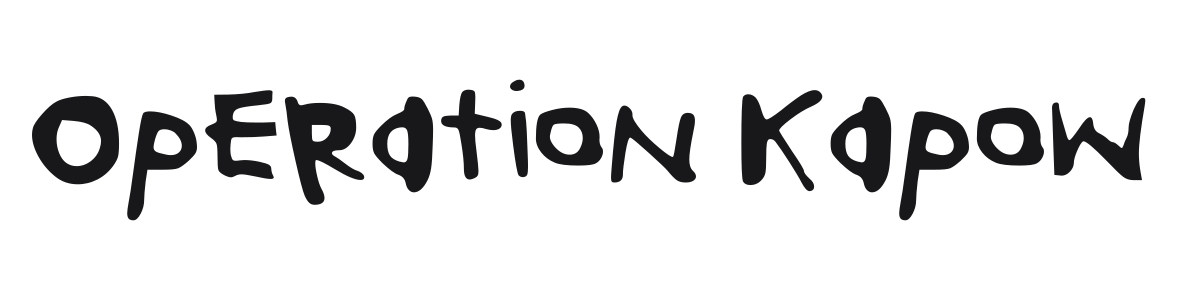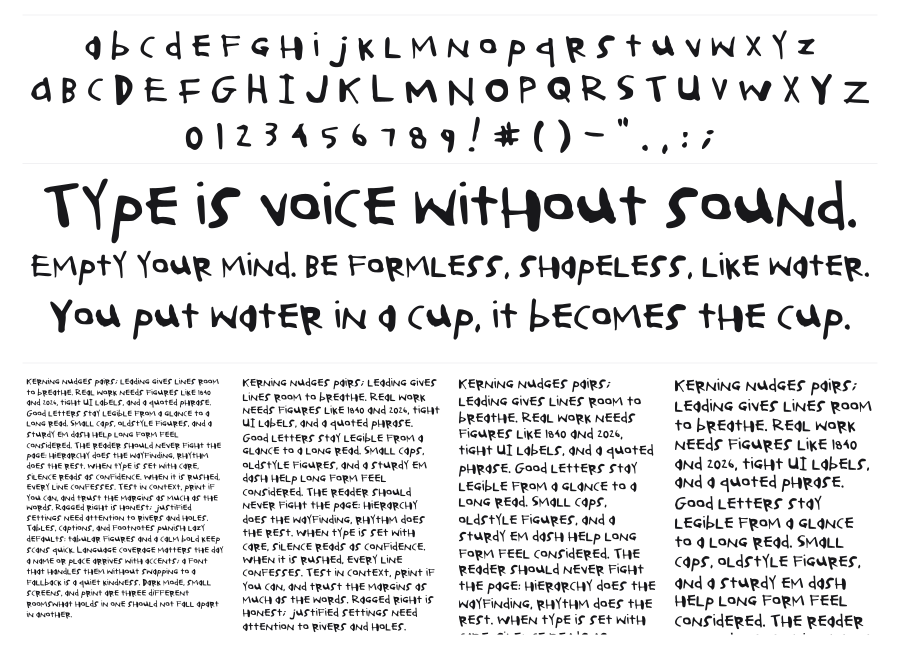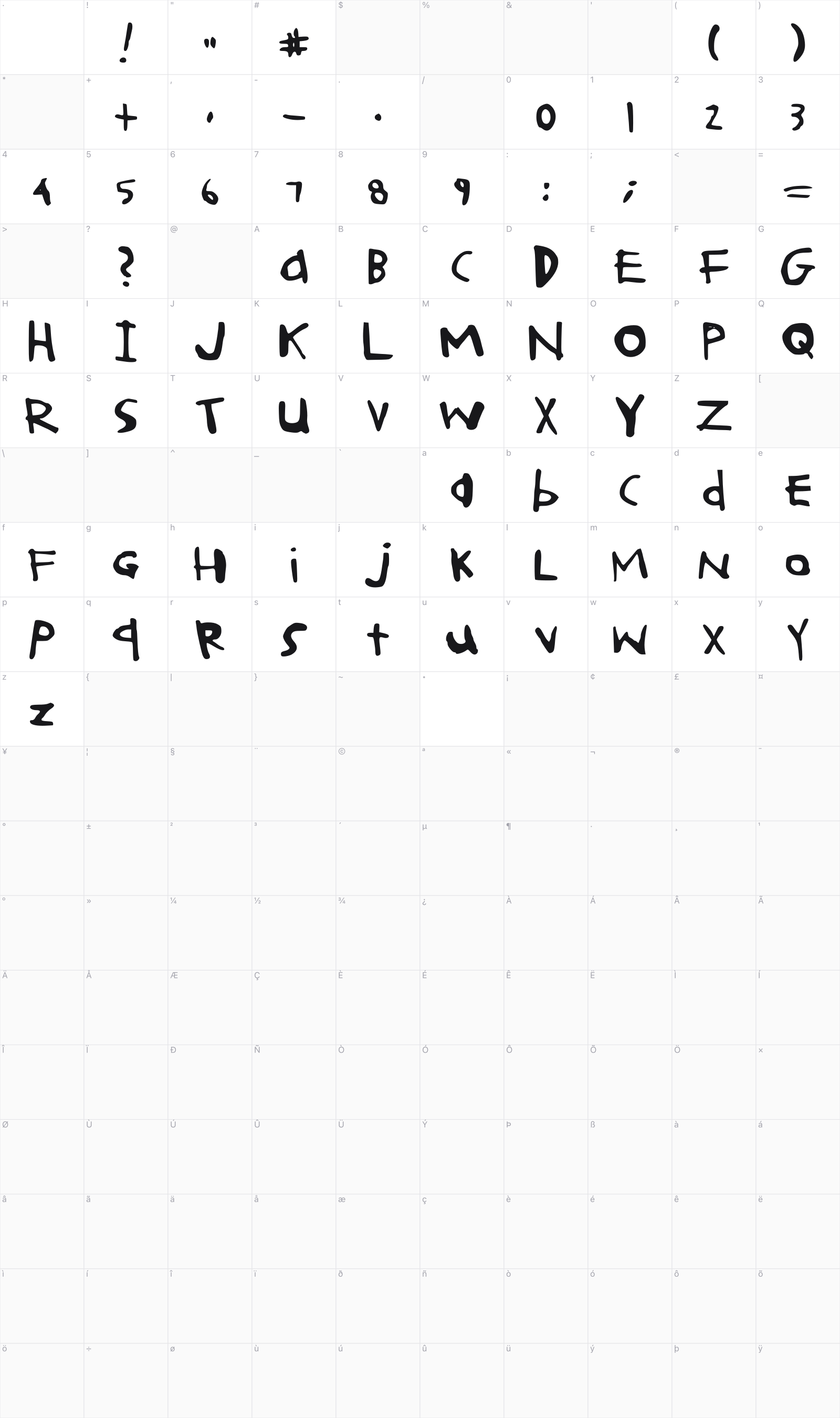
Operation Kapow
Operation Kapow is a bold, scribbled display font inspired by the chaotic handwriting found in Calvin and Hobbes comics. Characters wobble on the baseline, vary wildly in angle and thickness, and carry the frantic energy of a kid's notebook doodle blown up to headline scale. It's unruly by design, and that's exactly the point.